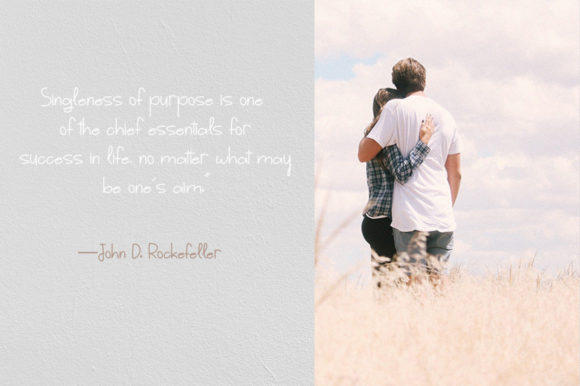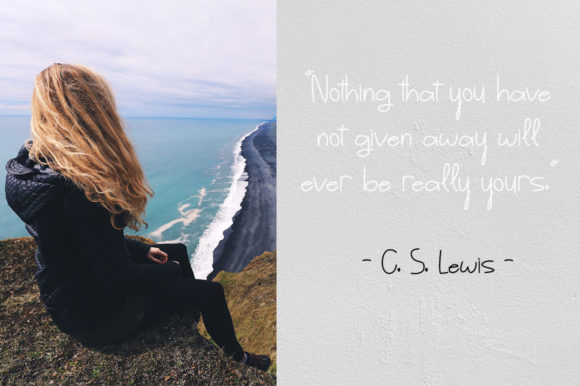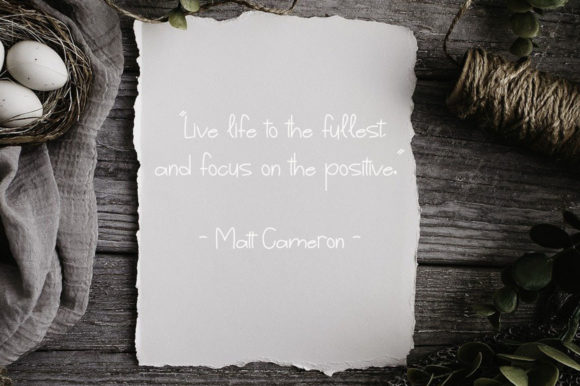
Introduction to Moonstone Font
Moonstone is a cute and delightful handwritten font.
Warm, romantic and jolly, this font will turn each of your project ideas into real works of art Have fun with this beautiful font and explore its endless variations.
Key Features of Moonstone Font
Why Choose Moonstone Font?
Moonstone Font offers exceptional quality and versatility, making it a valuable addition to your design toolkit. Whether you’re creating for personal projects or commercial use, Moonstone Font delivers professional results.